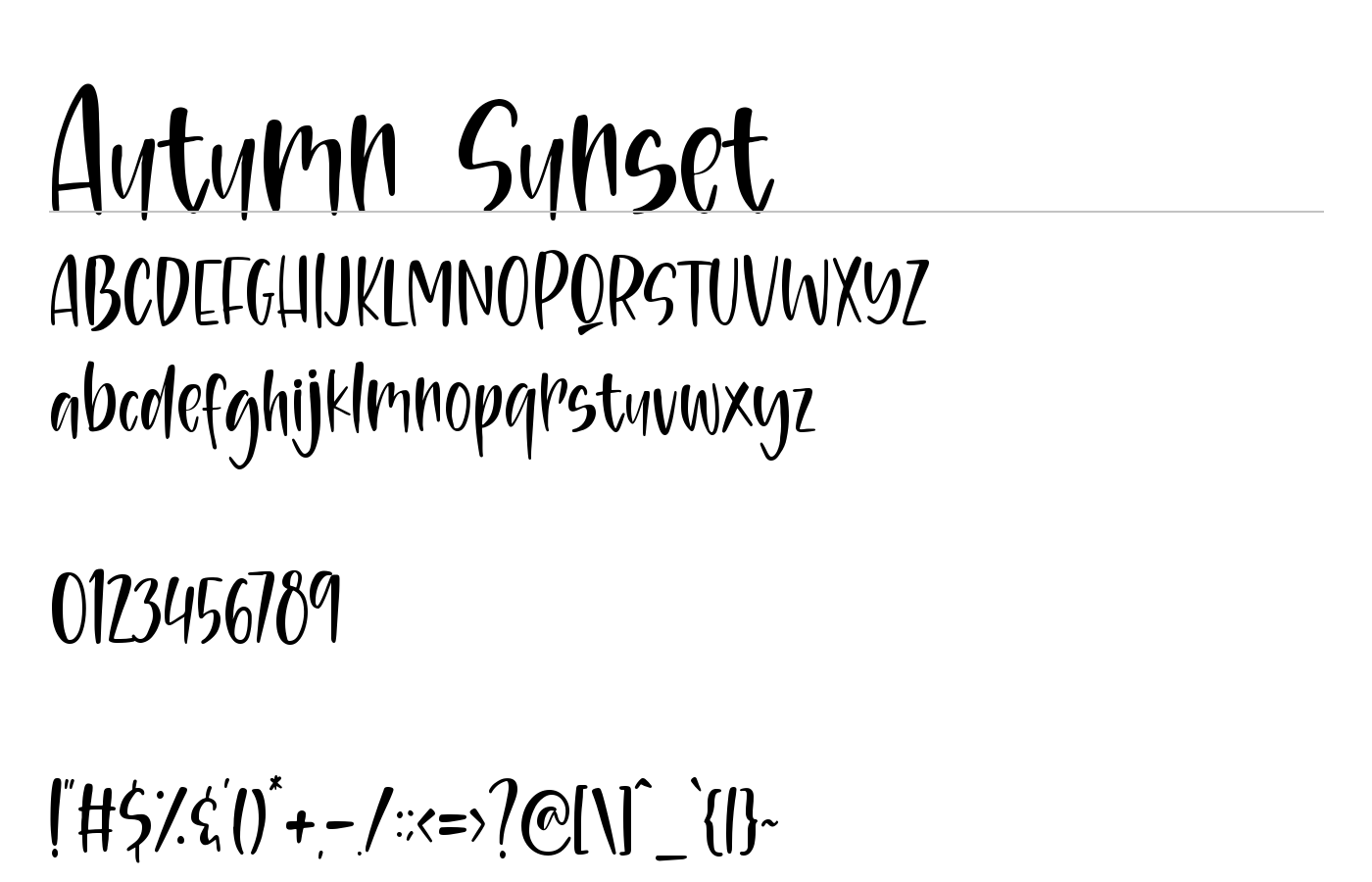
Autumn Sunset is a lively, hand-drawn script font with a casual, friendly feel, featuring tall, narrow letterforms and a smooth, brush-like stroke. Its uneven lines and playful curves give it a personal, approachable touch, making it ideal for creative projects, branding, and invitations that want to convey warmth and individuality. This font works well in headlines and logos where a unique, handcrafted look is desired.
Autumn Sunset Font
About Autumn Sunset Font
| Font family | Autumn Sunset Font |
| Designer | Dimas Prasetyo |